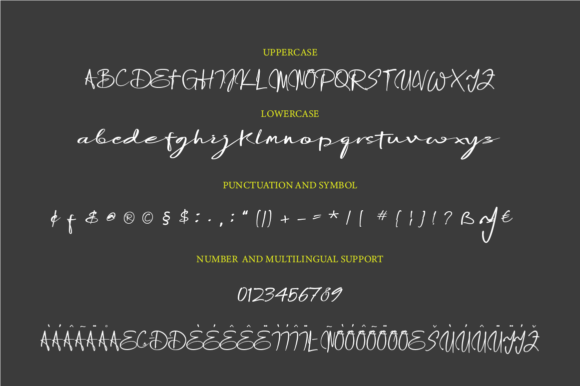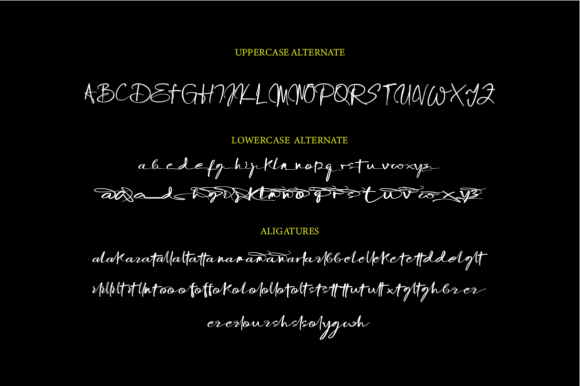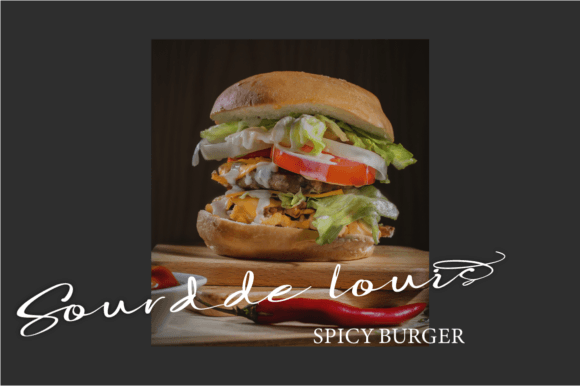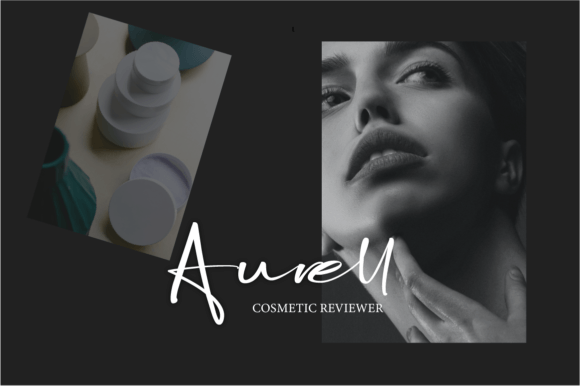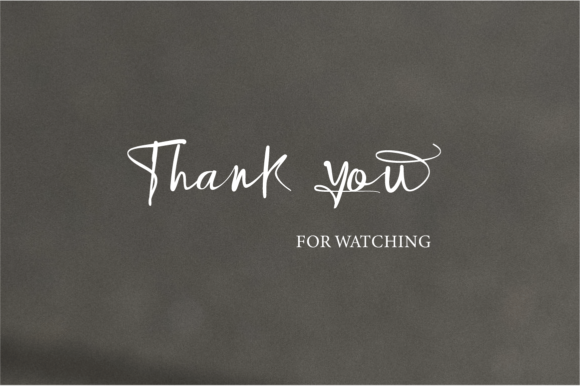
Birmingham Font: Elevate Your Designs with Elegance and Sophistication
In the world of typography, fonts play a crucial role in conveying the tone and personality of a design. For those seeking a stylish and elegant font to create beautiful and sophisticated signatures, look no further than the Birmingham Font. With its smooth and flowing lines, this font captures a sense of grace and charm, making it an ideal choice for adding a personal touch to documents, invitations, or any creative project.
The Characteristics of Birmingham Font
The Birmingham Font is characterized by its classic and timeless design. Its simplicity and versatility make it a popular choice for individuals seeking a sophisticated signature font. The font features smooth and flowing lines that give it a sense of elegance and refinement. Whether you’re looking to add a personal touch to your documents, create beautiful invitations, or simply want to elevate your design game, the Birmingham Font is an excellent choice.
Why Choose Birmingham Font?
So, why choose the Birmingham Font over other fonts? Here are just a few reasons why designers and crafters love this font:
- Elegance and Sophistication: The Birmingham Font exudes elegance and sophistication, making it perfect for creating beautiful and refined signatures.
- Versatility: This font is versatile and can be used for a variety of design projects, from documents and invitations to creative projects and more.
- Simplicity: The Birmingham Font features a simple yet stylish design that makes it easy to read and understand.
- Timeless Appeal: Unlike trendy fonts that quickly go out of style, the Birmingham Font has a timeless appeal that ensures your designs will remain stylish and relevant for years to come.
How to Use Birmingham Font in Your Designs
Using the Birmingham Font in your designs is easy. Here are a few tips to get you started:
- Pair it with Other Fonts: The Birmingham Font pairs well with other fonts, making it easy to create visually appealing designs. Try pairing it with a bold font for headings and a sans-serif font for body text.
- Experiment with Colors: The Birmingham Font looks great in a variety of colors. Experiment with different colors to find the one that works best for your design.
- Use it for Signatures: The Birmingham Font is perfect for creating beautiful and sophisticated signatures. Use it to add a personal touch to your documents and invitations.
- Be Creative: Don’t be afraid to get creative with the Birmingham Font. Use it for a variety of design projects, from brochures and flyers to posters and more.
Here are a few tips for designers and crafters looking to get the most out of the Birmingham Font:
- Pay Attention to Kerning: Make sure to pay attention to kerning when using the Birmingham Font. Proper kerning ensures that your text is easy to read and understand.
- Use it for Branding: The Birmingham Font is perfect for branding projects. Use it to create a consistent look and feel across all your marketing materials.
- Experiment with Different Sizes: The Birmingham Font looks great in a variety of sizes. Experiment with different sizes to find the one that works best for your design.
- Combine it with Images: The Birmingham Font pairs well with images. Use it to create visually appealing designs that incorporate text and images.
In conclusion, the Birmingham Font is a stylish and elegant font that’s perfect for creating beautiful and sophisticated signatures. With its smooth and flowing lines, this font captures a sense of grace and charm, making it an ideal choice for adding a personal touch to documents, invitations, or any creative project. Its simplicity and versatility make it a popular choice for individuals seeking a classic and timeless signature font. Whether you’re a designer or crafter, the Birmingham Font is an excellent choice for elevating your designs and adding a touch of elegance and sophistication.